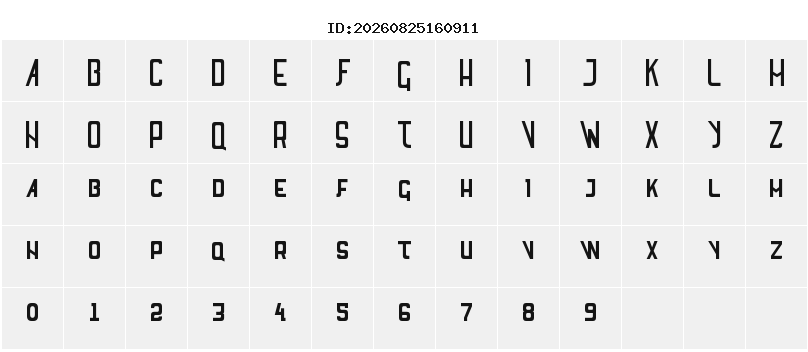
SL Thank You For The Venom Preview
• Font Name: SL Thank You For The Venom
• Full Font Name: SL Thank You For The Venom
About SL Thank You For The Venom.ttf
SL Thank You For The Venom.ttf is a modern, elegant sans-serif font designed for ultimate readability and visual harmony. Perfect for branding, headlines, web design, and print materials.